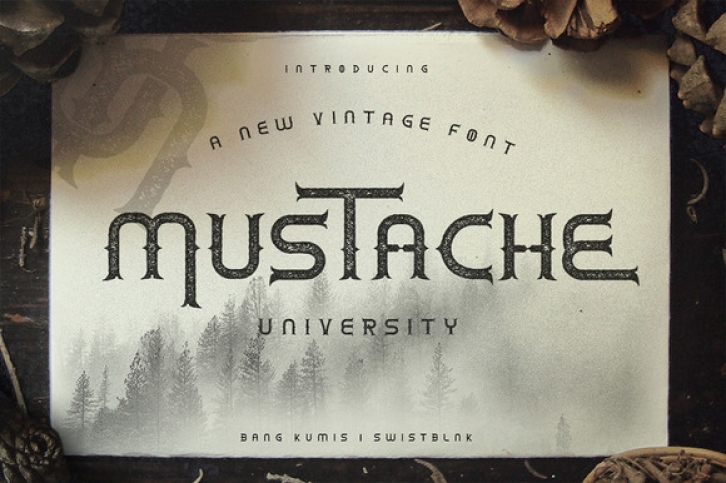
Mustache university is a wild vintage font inspired by oldskool signage.
Can be used for various purposes such as: typography, signs, logotype, newspaper headlines, posters letterheads and much more